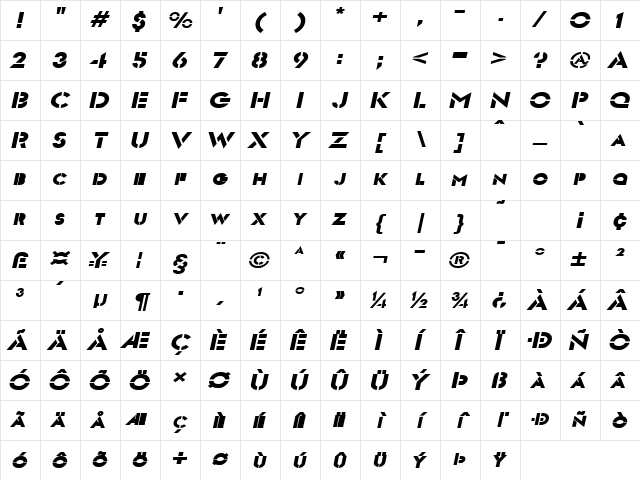
Templett Wide BoldItalic
Design Context for Templett Wide
Templett Wide is a composed and adaptable typeface that performs quietly and consistently across a wide range of design contexts. The slanted form adds forward momentum and visual energy. Its bold stroke weight gives it real presence on the page.
Pro Tip: Use Templett Wide for emphasis, pull quotes, and subheadings where its slanted energy can add rhythm to the layout.